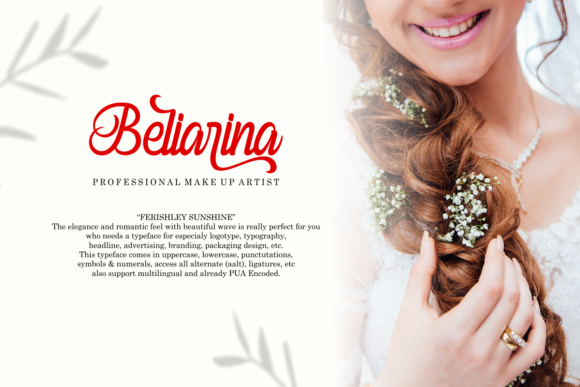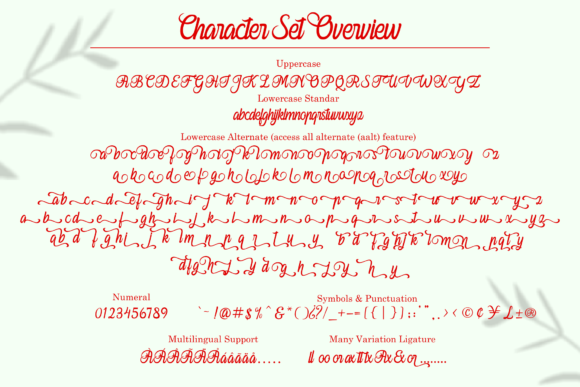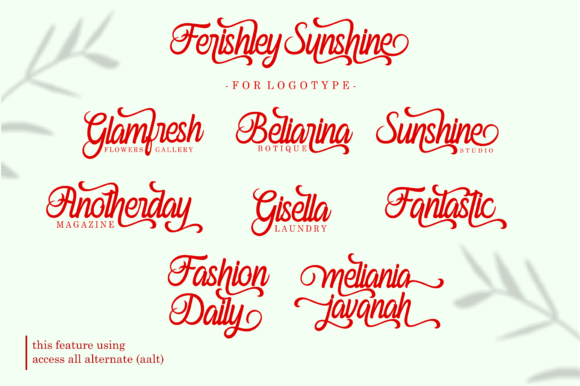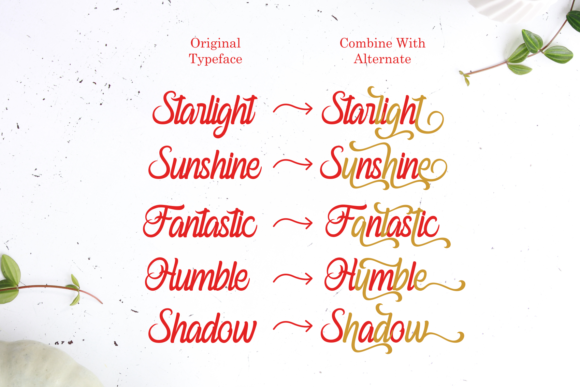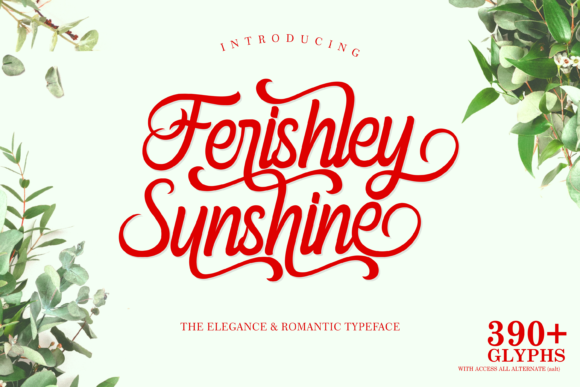
Ferishley Sunshine by Holydie Studio
Whimsical elegant script font with romantic flair for weddings, invitations, and bespoke designs requiring a touch of sophistication.